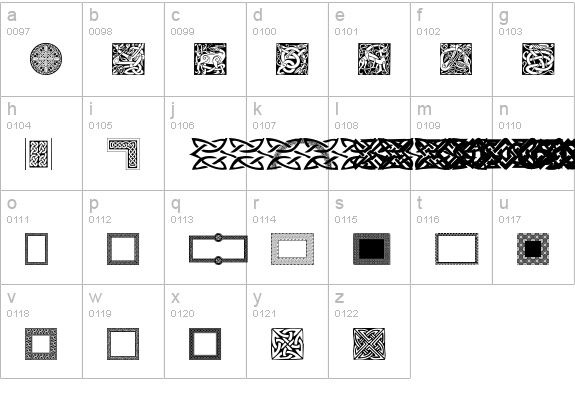
Celtic Elements Font Details
Celtic Elements font is a captivating and intricate typeface inspired by the rich history and cultural heritage of the Celtic people. This unique font features ornate Celtic knots and intricate designs that evoke a sense of mystery and enchantment. Perfect for adding a touch of magic to your designs, Celtic Elements font is a versatile choice for a wide range of projects. What makes Celtic Elements font even more appealing is that it is available for free download at FontsMarket.com. This means that you can easily add this stunning font to your collection without any cost. Whether you are designing a logo, creating invitations, or crafting a poster, Celtic Elements font will bring a touch of Celtic charm to your work. Embrace the magic of the Celtic tradition with Celtic Elements font, now available for free at FontsMarket.com.